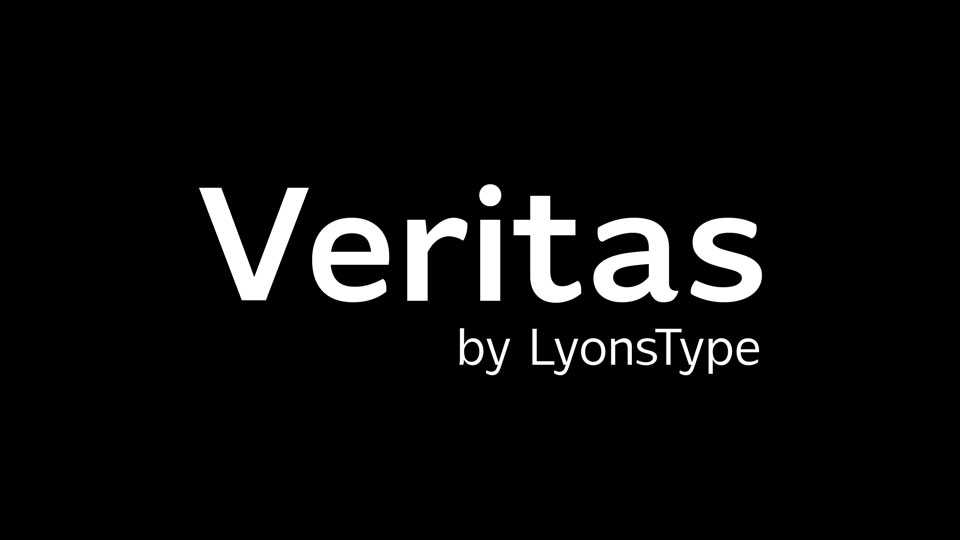
Download LT Veritas font, a sans serif typeface that draws its inspiration from an AI-generated image, resulting in consistent and error-free lettering.
Designer: LyonsType